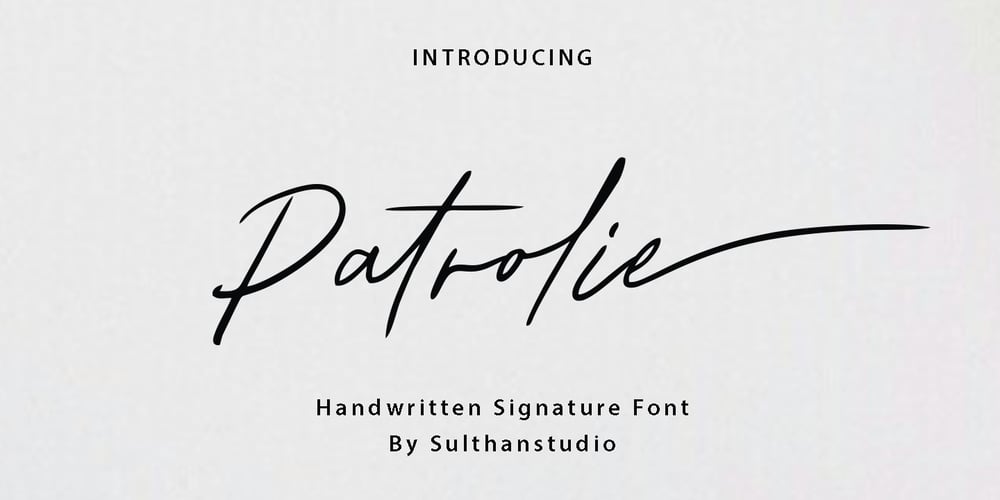
Patroli
Patroli font
Patroli Font Family was designed by Nasrullah and published by Sulthan Studio. Patroli contains 1 styles and family package options. Introducing a signature font designed to embrace freedom and originality in every stroke. This creation reflects untouched purity; hand-drawn on paper. Its organic nature reflects beauty, carefully achieved using a calligraphy pen. Perfect for mimicking a written signature, this font is also a shining gem for replicating handwritten paper text. Beyond this application, this font proves versatile for a variety of other uses. Experience the natural charm and sophisticated appeal combined in this beautiful signature font.